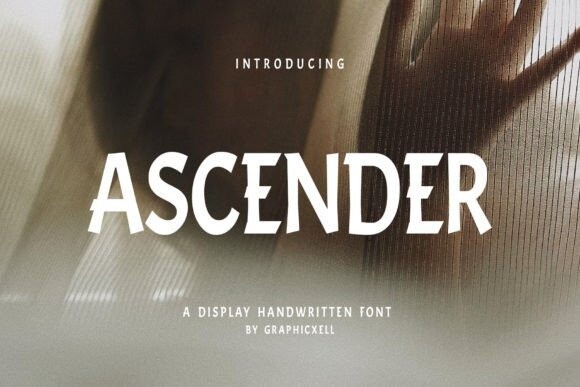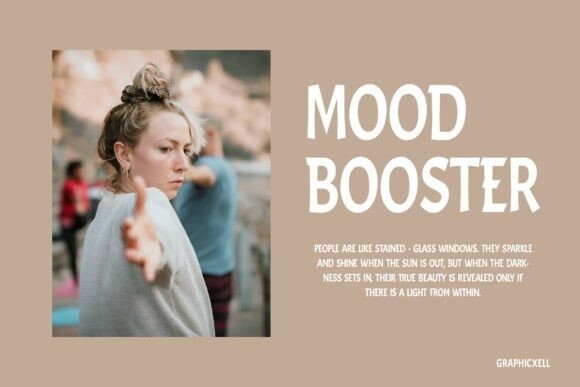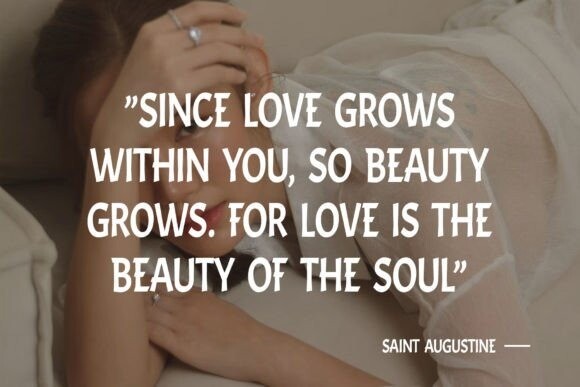
Ascender Font
Ascender Font is a versatile, playful display font. It is perfect for a wide spectrum of applications such as greeting cards, headlines, and many more! Add it confidently to your projects, and you will love the results.